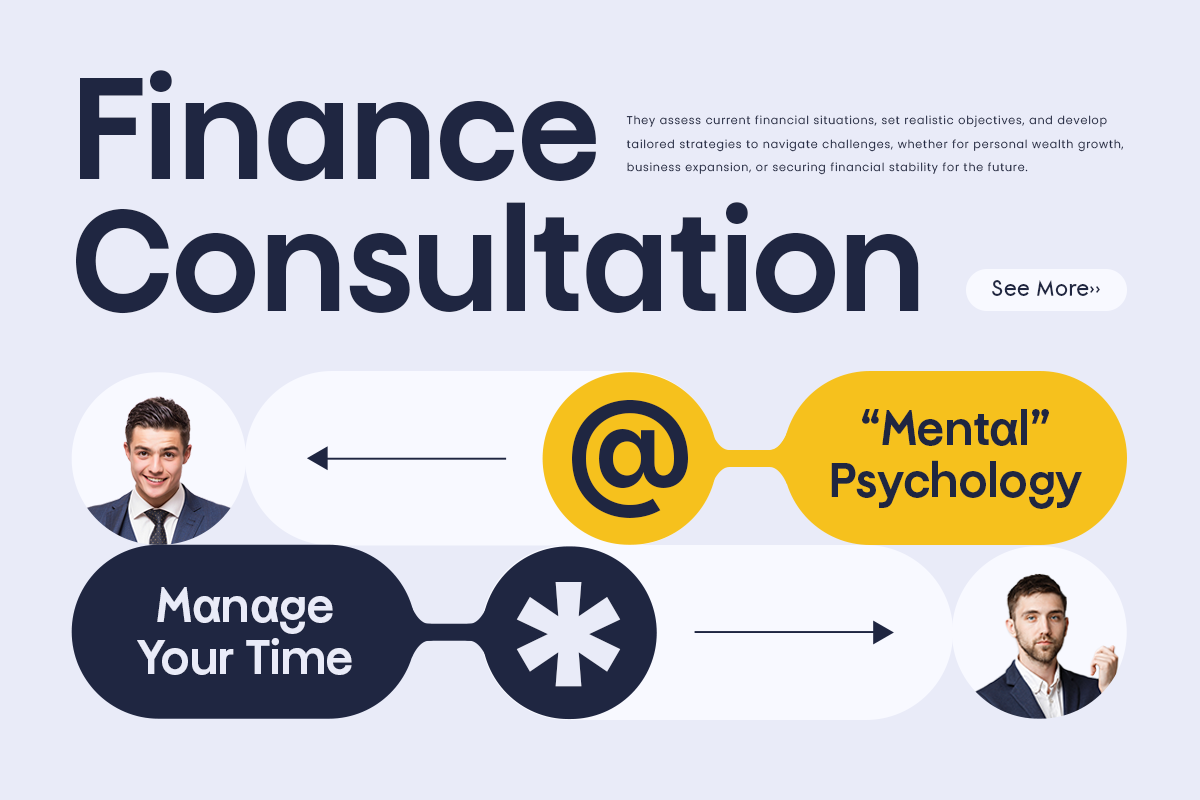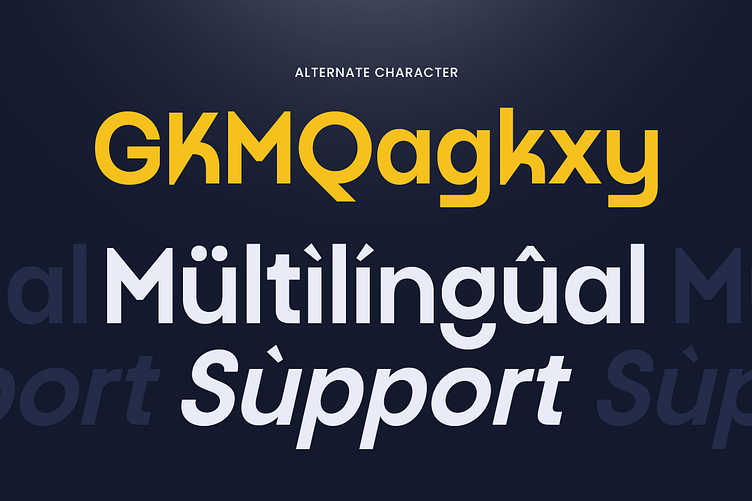
Nega Font - Sharp Modern Typeface for Bold Visual Branding ✨
Nega - Modern Logo Font ✨
Meet Nega, a modern typeface crafted for sleek branding and bold identity. With clean forms, sharp edges, and confident proportions, Nega – Modern Logo Font was built to stand strong in logos, headlines, and visual systems that demand attention.
Inspired by minimalist architecture and high-end branding, Nega is perfect for corporate logos, design studios, fashion labels, fintech brands, and forward-thinking startups.
🧠 Ideal for:
– Design studios & creative agencies
– Fashion & luxury branding
– Fintech & corporate logos
– Modern, minimalist identities
Nega is minimal in structure but powerful in impression. Bold. Stylish. Engineered for modern branding.
Let your brand speak with clarity — and leave a lasting mark.